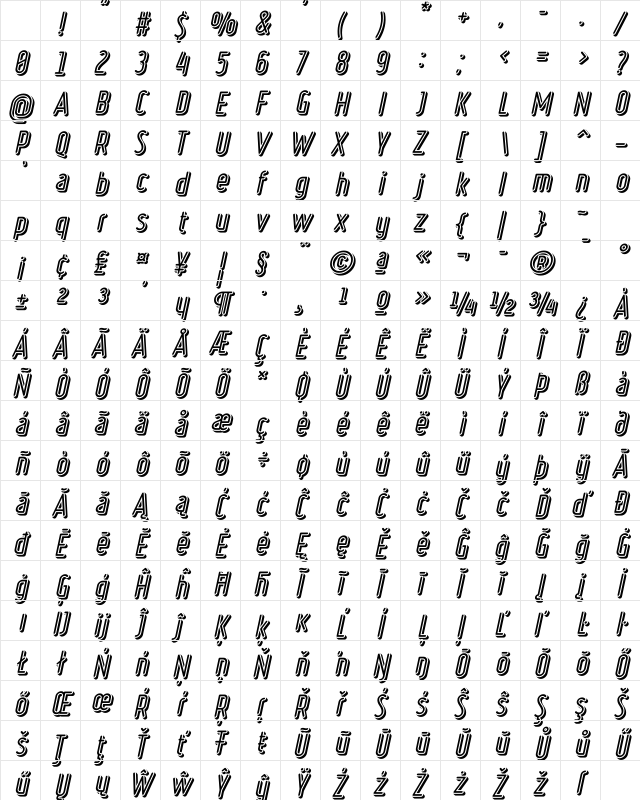
Complete Ruler Volume Negative Bold Italic glyph index. Displaying only characters natively supported by Ruler Volume Negative Bold Italic font.
Ruler Volume Negative is a composed and adaptable typeface that performs quietly and consistently across a wide range of design contexts. The slanted form adds forward momentum and visual energy. Its bold stroke weight gives it real presence on the page.
Pro Tip: Use Ruler Volume Negative for emphasis, pull quotes, and subheadings where its slanted energy can add rhythm to the layout.